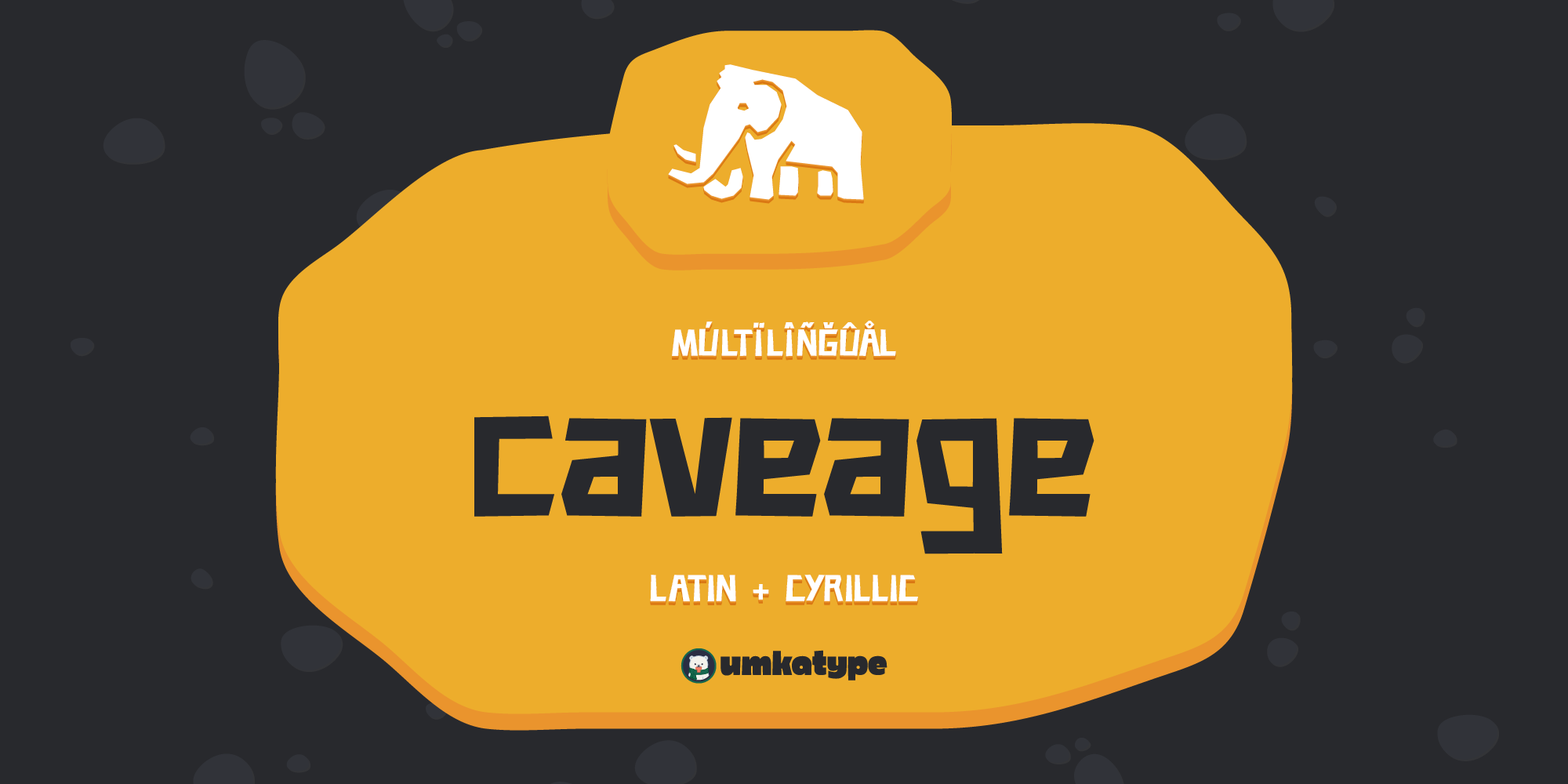
Cave Age Font is perfect for prehistoric design projects including archaeological museums, natural history exhibitions, paleontology departments, prehistoric adventure films, stone age educational materials, fossil discovery presentations, ancient civilization studies, and primitive heritage campaigns. This primitive typeface excels in anthropology museums, prehistoric research centers, cave painting exhibitions, early human history documentaries, and projects that celebrate humanity's earliest cultural achievements and prehistoric heritage.
What makes Cave Age Font exciting is its authentic prehistoric character that perfectly captures the essence of stone age communication and primitive artistry. The font features rough-hewn letterforms with cave painting aesthetics that reflect the raw creativity and fundamental communication methods of early human civilizations. Its primitive design elements embody the spirit of prehistoric ingenuity and ancient human expression, making it perfect for projects that need to convey authenticity, primordial strength, and connection to humanity's earliest origins. The carefully crafted stone-age details create an atmosphere of archaeological discovery and prehistoric wonder.
Cave Age Font comes in multiple family variations including stone, primitive, carved, and ancient styles. Each weight maintains the distinctive prehistoric character while offering different levels of stone age intensity and primitive presence. The font family includes cave alternates, stone ligatures, and prehistoric variations that provide designers with comprehensive options for creating truly authentic and archaeologically accurate typographic compositions that honor human origins.
Whether you're designing archaeological branding, creating prehistoric marketing materials, or developing ancient promotional graphics, Cave Age Font Free Download provides the perfect typographic foundation for projects that celebrate prehistoric excellence and stone age heritage. This remarkable typeface transforms ordinary text into compelling expressions of primitive wisdom and archaeological wonder. Download this ancient font today and carve your design projects with the prehistoric authenticity and stone age character that captures the fundamental spirit of human creativity and ancient communication methods.